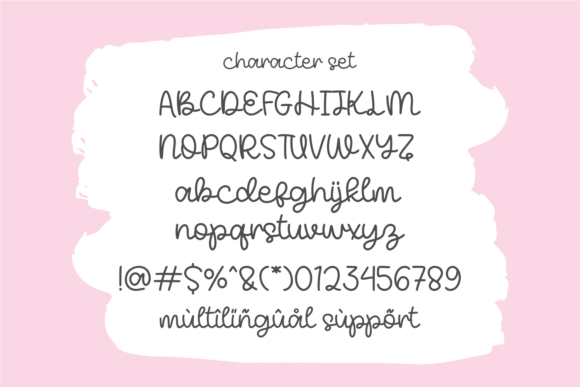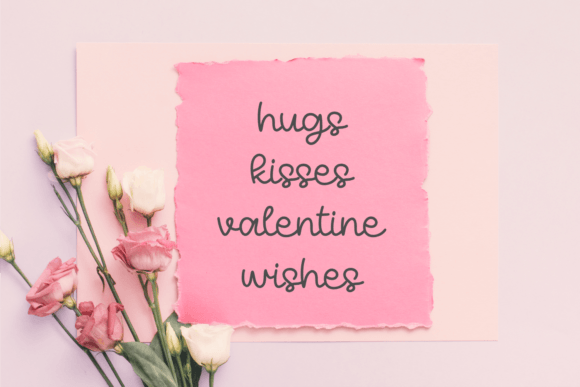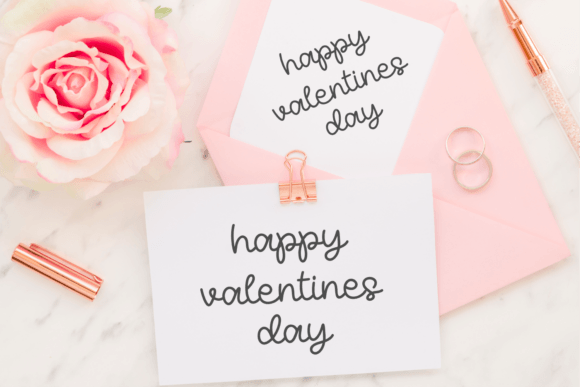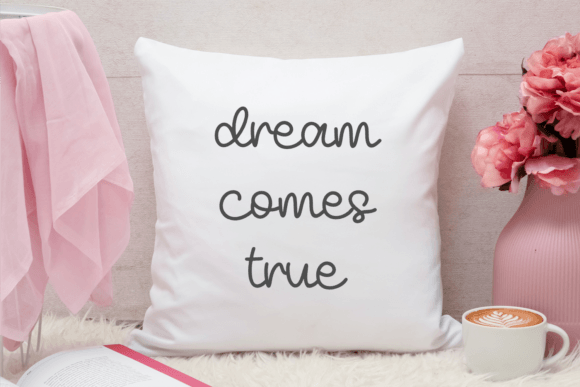
Introduction to Romance Delight Font
Have you ever found yourself doodling hearts and flowers on a love letter or a Valentine’s Day card? For many of us, creating something special for our loved ones is a labor of love, and the right font can make all the difference. That’s where the Romance Delight Font comes in – a charming and playful Valentine’s Day font that captures the sweetness of love.
This delightful font is a must-have for any designer looking to add a touch of romance to their creative projects. Its casual handwritten style paired with cute, whimsical strokes makes it ideal for romantic designs, wedding invitations, love notes, greeting cards, and more. With the Romance Delight Font, you can add a sprinkle of romance to your projects and make them truly special.
Key Features of Romance Delight Font
- High-quality design resource ideal for creative projects and romantic themes, featuring elegant and sophisticated typography.
- Designed with a romantic and whimsical touch, featuring intricate details and flourishes, perfect for wedding invitations, greeting cards, and other special occasion designs.
Honest Review: Romance Delight Font
I recently stumbled upon the Romance Delight Font and was excited to give it a try. As a designer, I’m always on the lookout for high-quality design resources to elevate my creative projects. The Romance Delight Font did not disappoint.
What works well: ✨ The font is incredibly versatile, making it perfect for a wide range of creative projects, from wedding invitations to greeting cards. The high-quality design is crisp and clean, with a transparent background that makes it easy to use on any background. The free download option is also a huge plus, making it accessible to designers of all levels.
Limitations: ⚠️ While the Romance Delight Font is a great addition to any designer’s toolkit, it may not be suitable for all types of projects. The font is designed to be romantic and whimsical, so it may not be the best choice for more serious or formal projects.
Overall, I’m really impressed with the Romance Delight Font. It’s a great resource for designers who want to add a touch of romance and whimsy to their creative projects. While it may have some limitations, the font is definitely worth checking out.